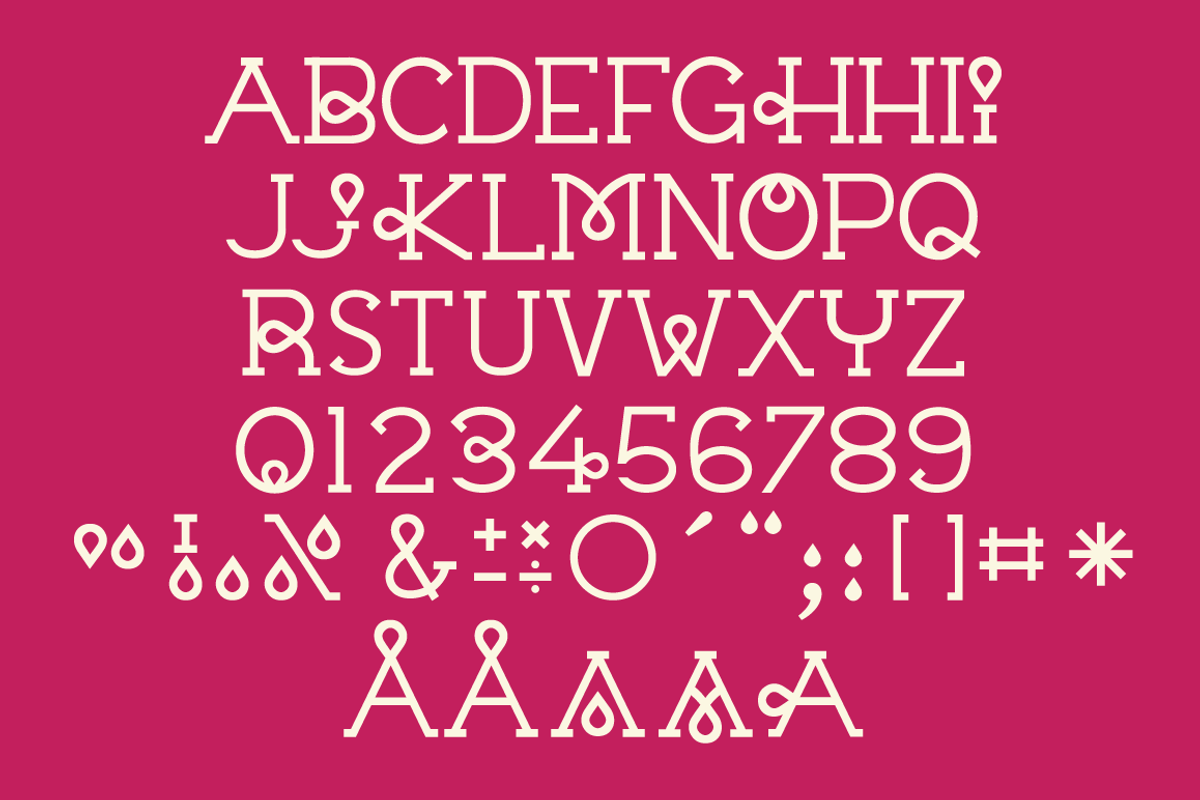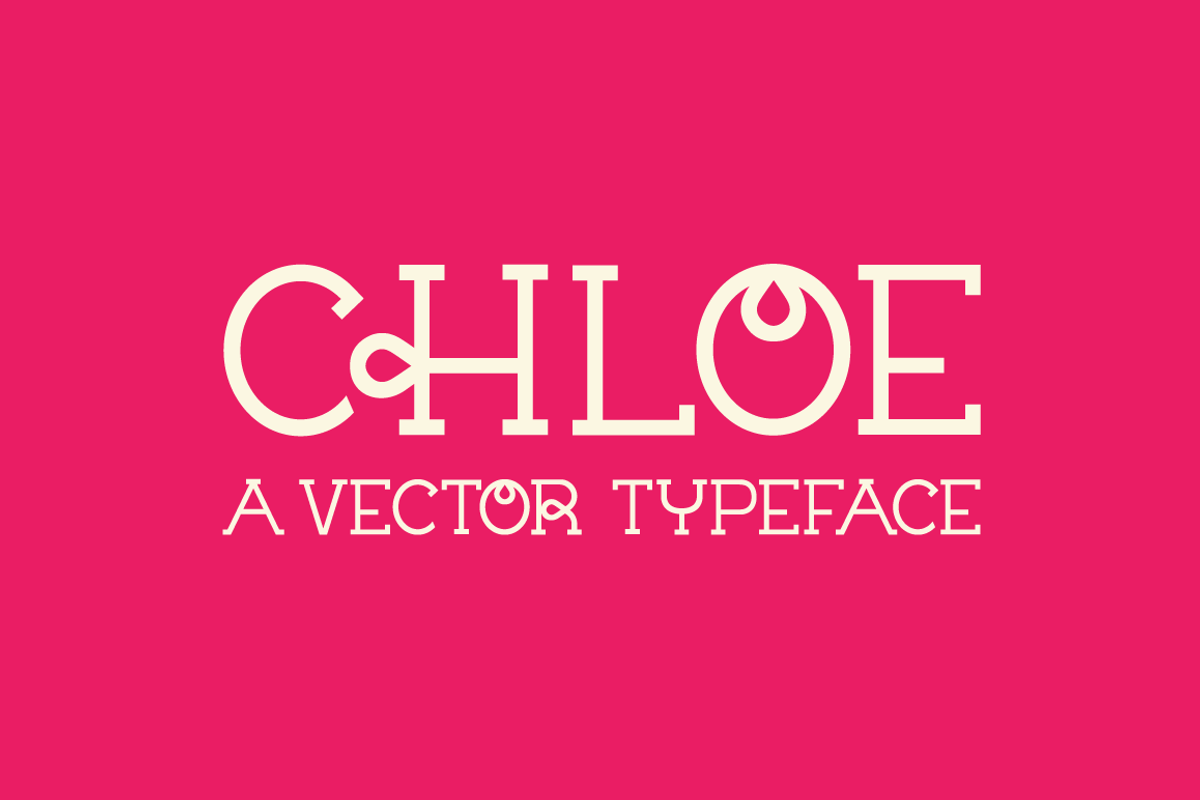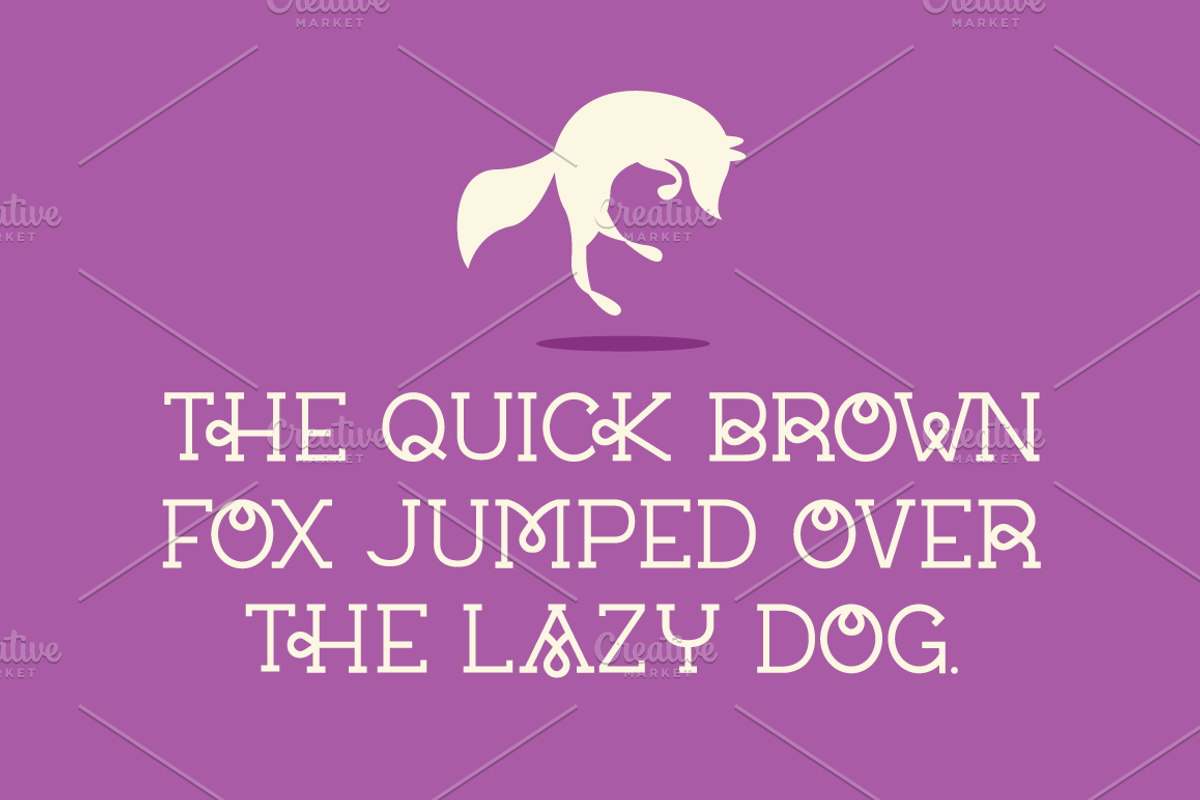
Vector Typeface: Chloe
Vector Typeface: Chloe by CSA Creative Studio is a font selected for branding, posters, packaging, typography.
Vector Typeface: Chloe by CSA Creative Studio fits naturally into Branding, posters, packaging, typography.